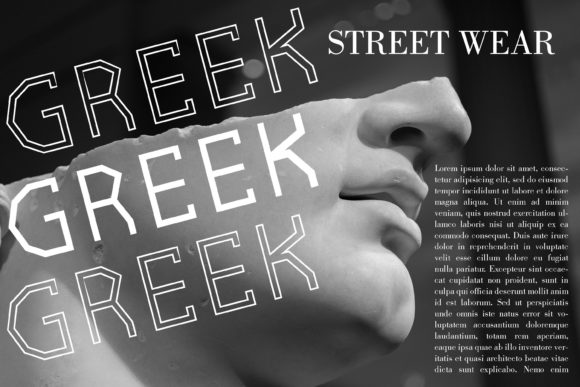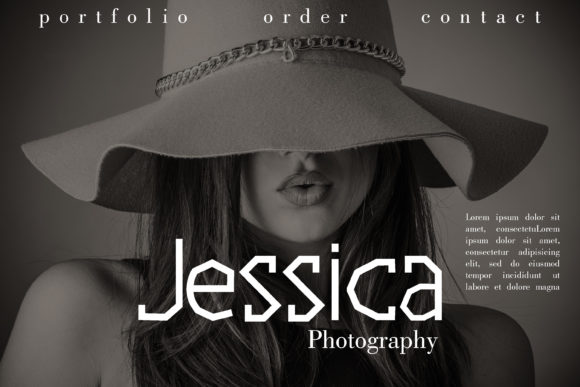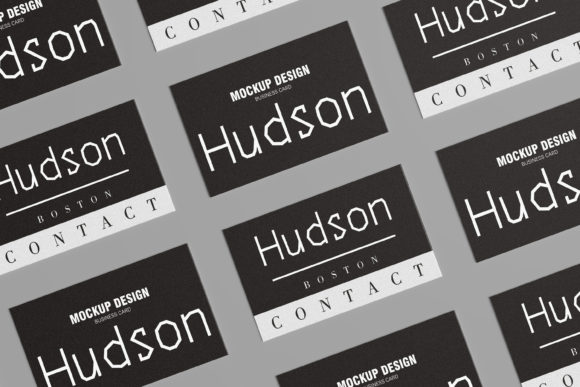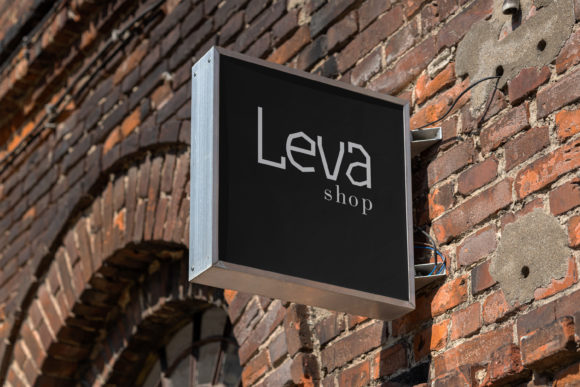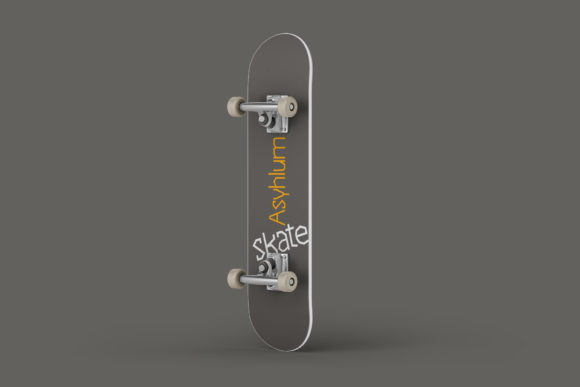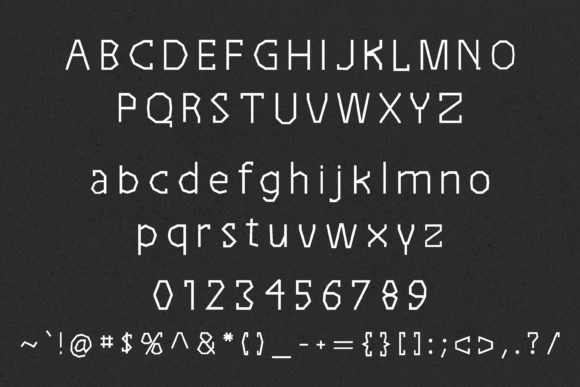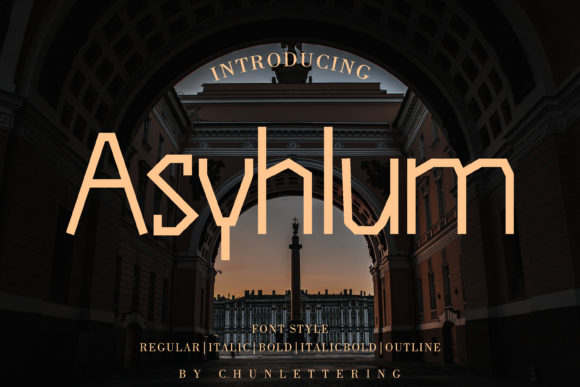
Introducing Asyhlum Font: The Ultimate Display Font for Bold Designs
Are you tired of using the same old fonts for your branding projects? Look no further than Asyhlum Font, a cool and bold display font that’s perfect for making a statement. Whether you’re working on a logo, t-shirt printing, sporting design, or any other project that requires a unique and eye-catching font, Asyhlum is the perfect choice.
What Makes Asyhlum Font So Special?
Asyhlum Font is a carefully crafted display font that’s designed to stand out in a wide range of contexts. Its bold and cool design makes it perfect for headlines, titles, and any other text that needs to grab attention. The font’s unique style is sure to set your brand apart from the competition and leave a lasting impression on your audience.
Key Features of Asyhlum Font
- Bold and Cool Design: Asyhlum Font has a bold and cool design that’s perfect for making a statement.
- High-Quality Letters: The font features high-quality letters that are clear and easy to read, even at small sizes.
- Wide Range of Uses: Asyhlum Font is suitable for a wide range of projects, including logos, t-shirt printing, sporting design, and more.
Why Choose Asyhlum Font?
There are many fonts to choose from, but Asyhlum Font stands out from the rest. Here are just a few reasons why:
- Unique Style: Asyhlum Font has a unique style that’s sure to set your brand apart from the competition.
- Versatility: The font is versatile and can be used in a wide range of projects, from logos to t-shirt printing.
- High-Quality: Asyhlum Font is a high-quality font that’s designed to look great in any context.
Tips and Tricks for Using Asyhlum Font
Here are a few tips and tricks for getting the most out of Asyhlum Font:
- Use it for Headlines: Asyhlum Font is perfect for headlines and titles, where its bold and cool design can really shine.
- Experiment with Colors: Try out different colors and gradients to really make the font pop.
- Pair it with Other Fonts: Pair Asyhlum Font with other fonts to create a unique and interesting contrast.
Asyhlum Font is a cool and bold display font that’s perfect for any branding project. Its unique style, high-quality letters, and versatility make it a great choice for designers and crafters. Whether you’re working on a logo, t-shirt printing, sporting design, or any other project, Asyhlum Font is sure to make a statement. So why wait? Download Asyhlum Font today and start creating bold and eye-catching designs that will leave a lasting impression on your audience.